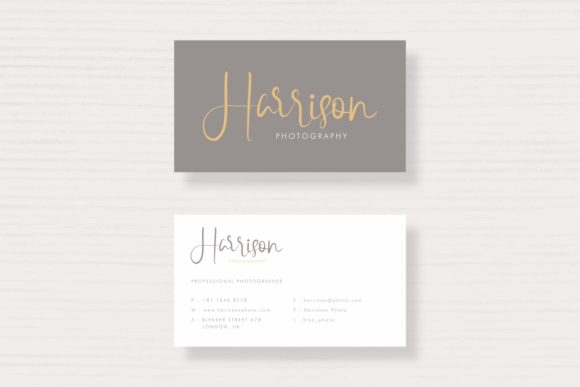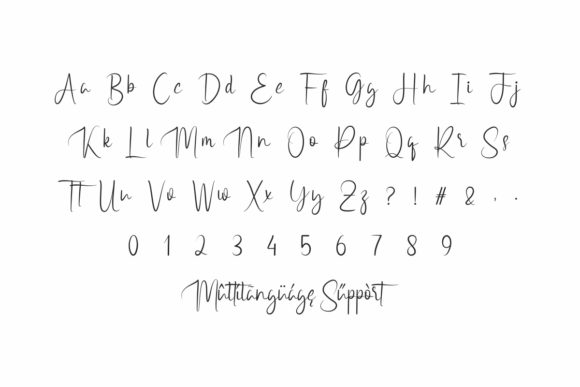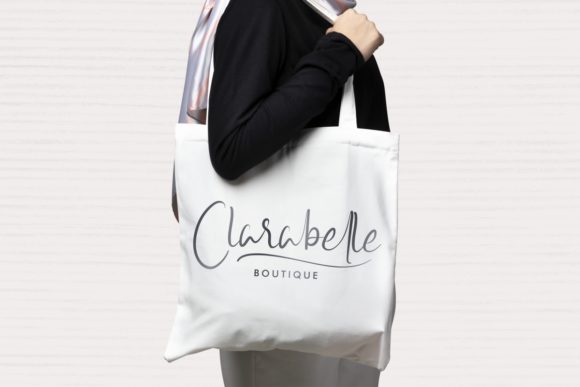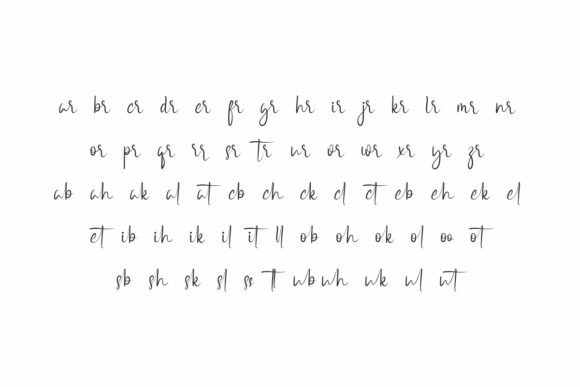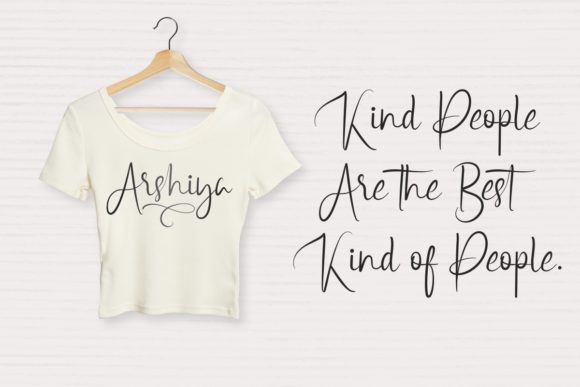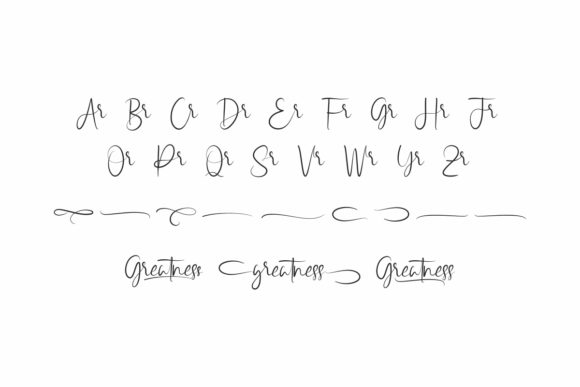
The Greatness Font: A Beautiful Handwritten Font for Creative Projects
Have you ever been in the middle of working on a design project, and suddenly, you’re stuck on finding the perfect font? I recall a recent experience where I was designing a wedding invitation, and I just couldn’t find a font that captured the elegance and whimsy I was looking for. That’s when I stumbled upon the Greatness Font, and it completely transformed my design. In this article, I’ll share my experience with this beautiful handwritten font, its features, and how to make the most of it in various design platforms.
A Personal Encounter with Greatness Font
I was working on a wedding invitation design, and I needed a font that would convey a sense of sophistication and romance. After hours of searching, I came across the Greatness Font, and it was love at first sight! The elegant handwritten strokes and beautiful swashes won my heart. I immediately knew I had found the perfect font for my project.
An Honest Review of Greatness Font
Here’s what I love about the Greatness Font:
- ✨ Beautiful handwritten strokes that add a touch of elegance to any design
- ✅ PUA encoded, making it easy to access all glyphs and swashes
- 💕 Perfect for a wide range of projects, including weddings, events, real estate, and more
- 🎨 Highly versatile and can be used for both digital and print designs
While the Greatness Font is amazing, there are a few minor quirks to be aware of:
- 🤔 Some users may find the font a bit too ornate for certain projects
- ⚠️ The font may not be suitable for very small font sizes, as some details may get lost
The Designer Inspiration Behind Greatness Font
The Greatness Font was designed with the intention of creating a beautiful, elegant handwritten font that would capture the essence of sophistication and romance. The designer aimed to create a font that would be versatile and suitable for a wide range of projects, from weddings and events to real estate and more.
| What is the Greatness Font best suited for? | The Greatness Font is perfect for a wide range of projects, including weddings, events, real estate, architect, florist, gardening, makeup artist, travel, hotel, musician, and more. |
| Is the Greatness Font PUA encoded? | Yes, the Greatness Font is PUA encoded, making it easy to access all glyphs and swashes. |